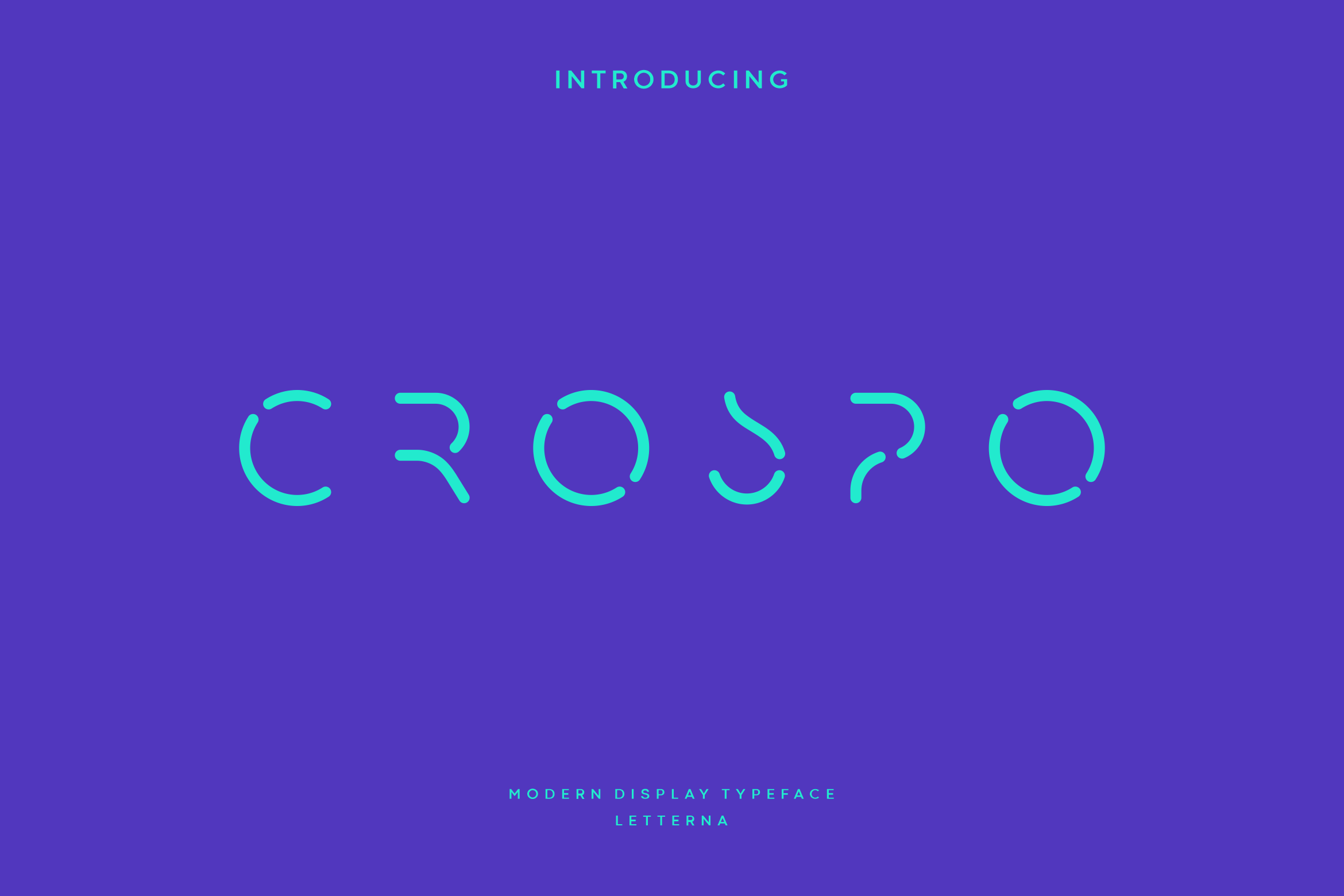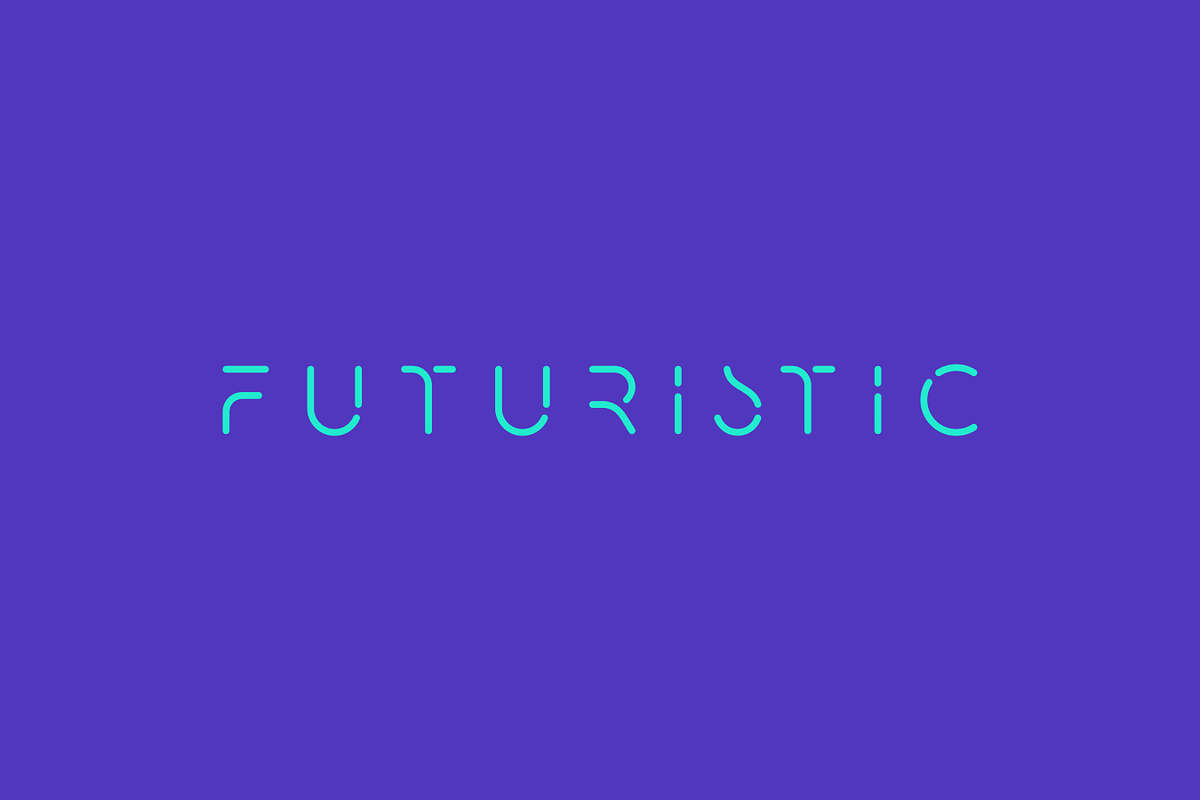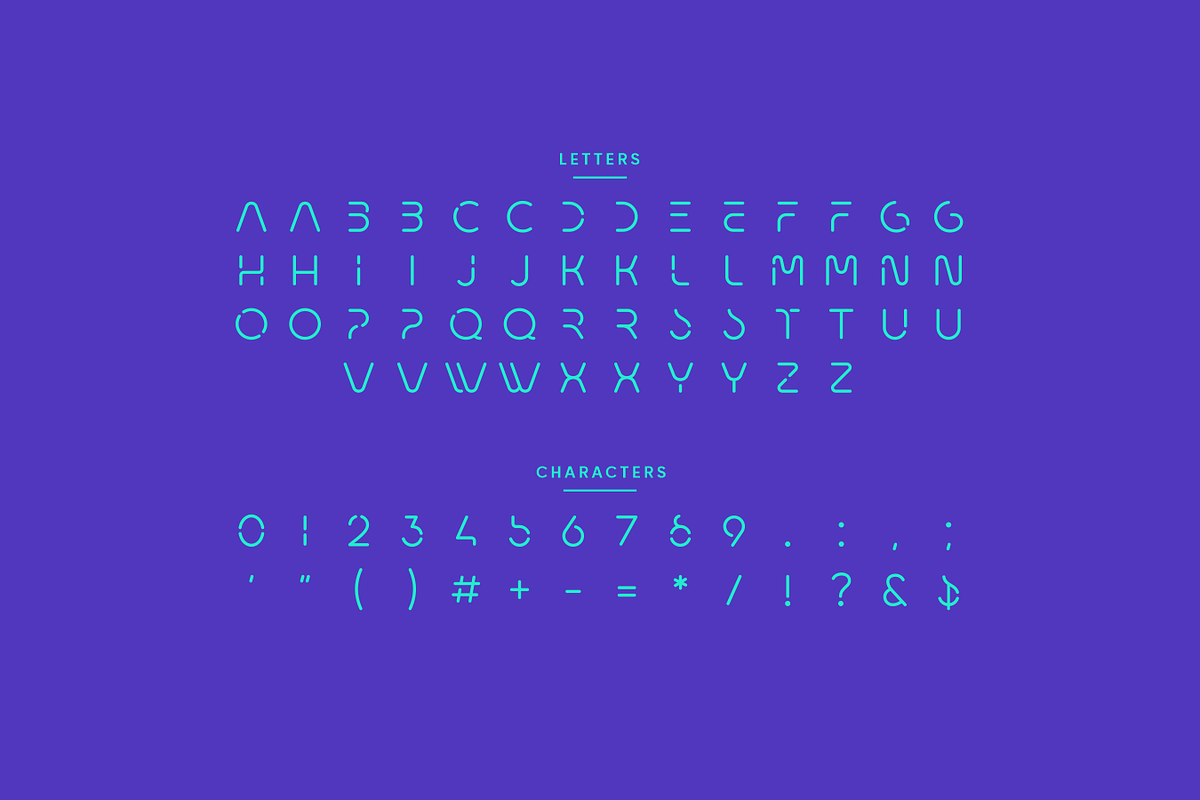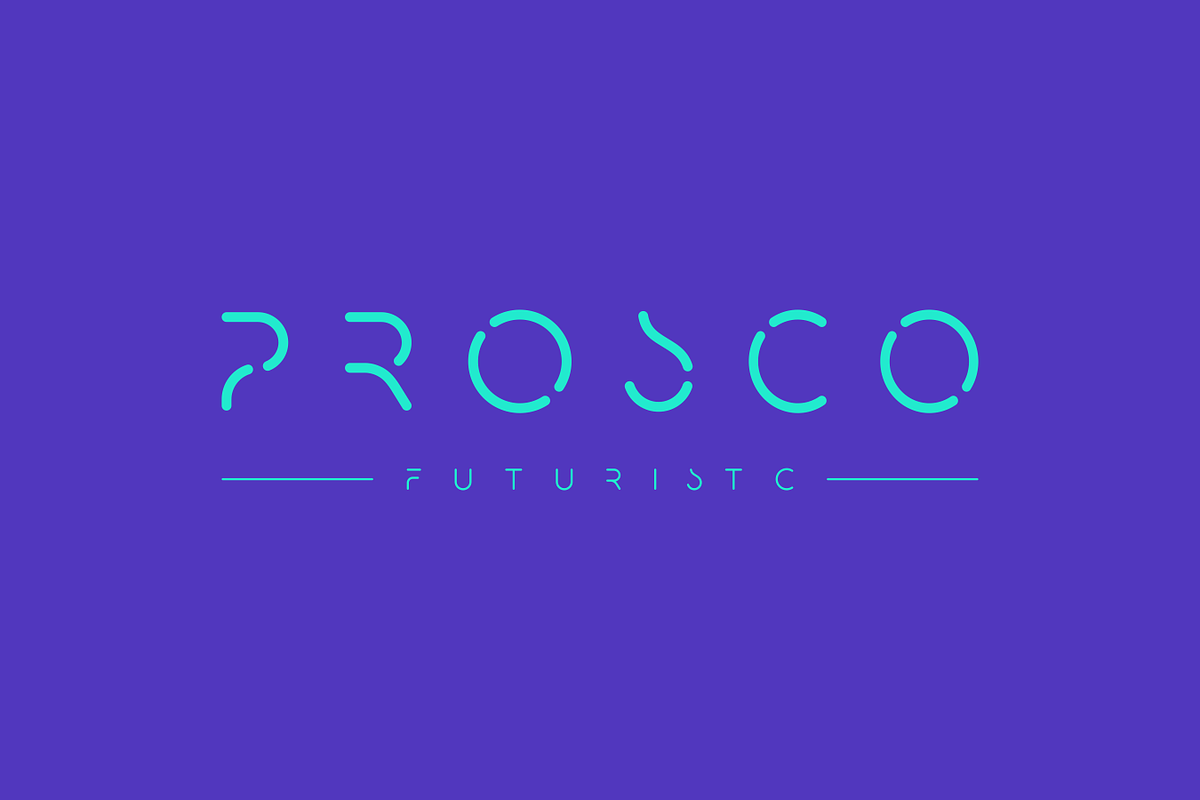
Crospo - Modern Futuristic Typeface
Crospo a contemporary typeface designed as a branding and branding solution. This font is designed as a versatile and flexible typeface that can be used in a variety of projects and media. Crospo is a modern, elegant and futuristic look font. This font would be ideal for writing web designs, business cards, logos, magazines or just about anything else that requires a unique touch.